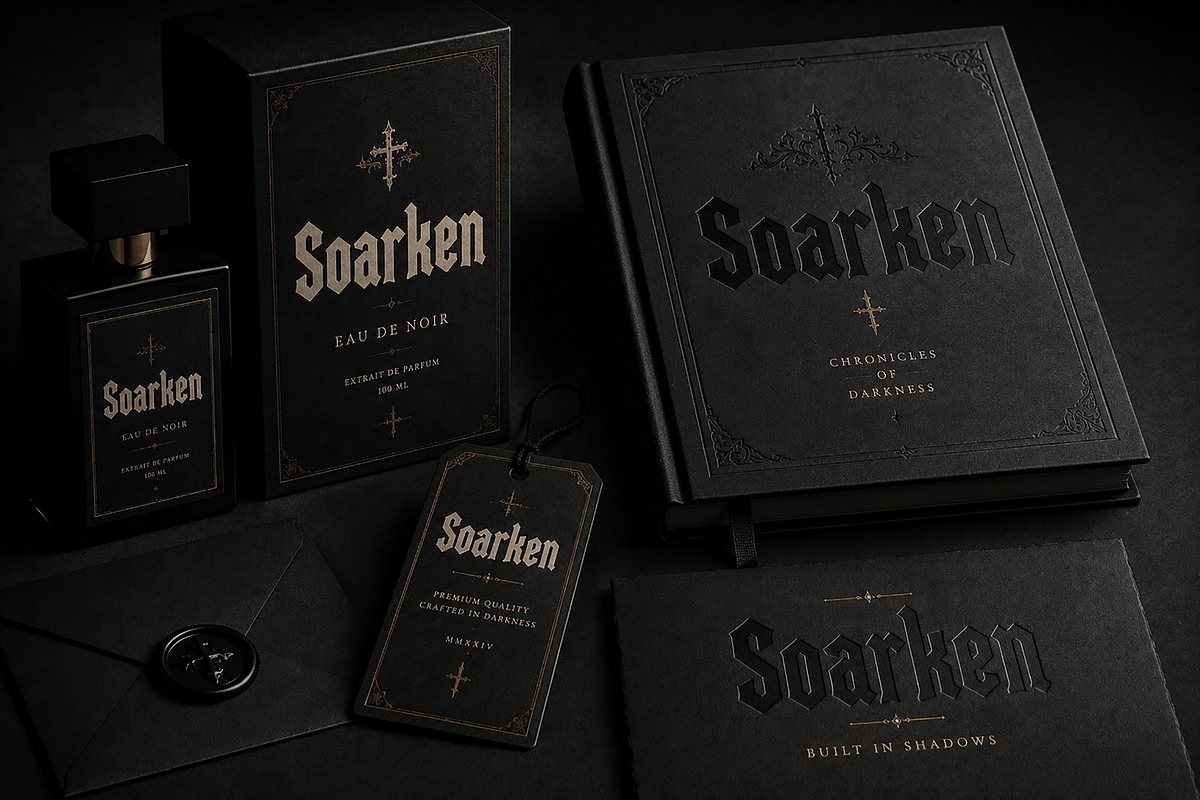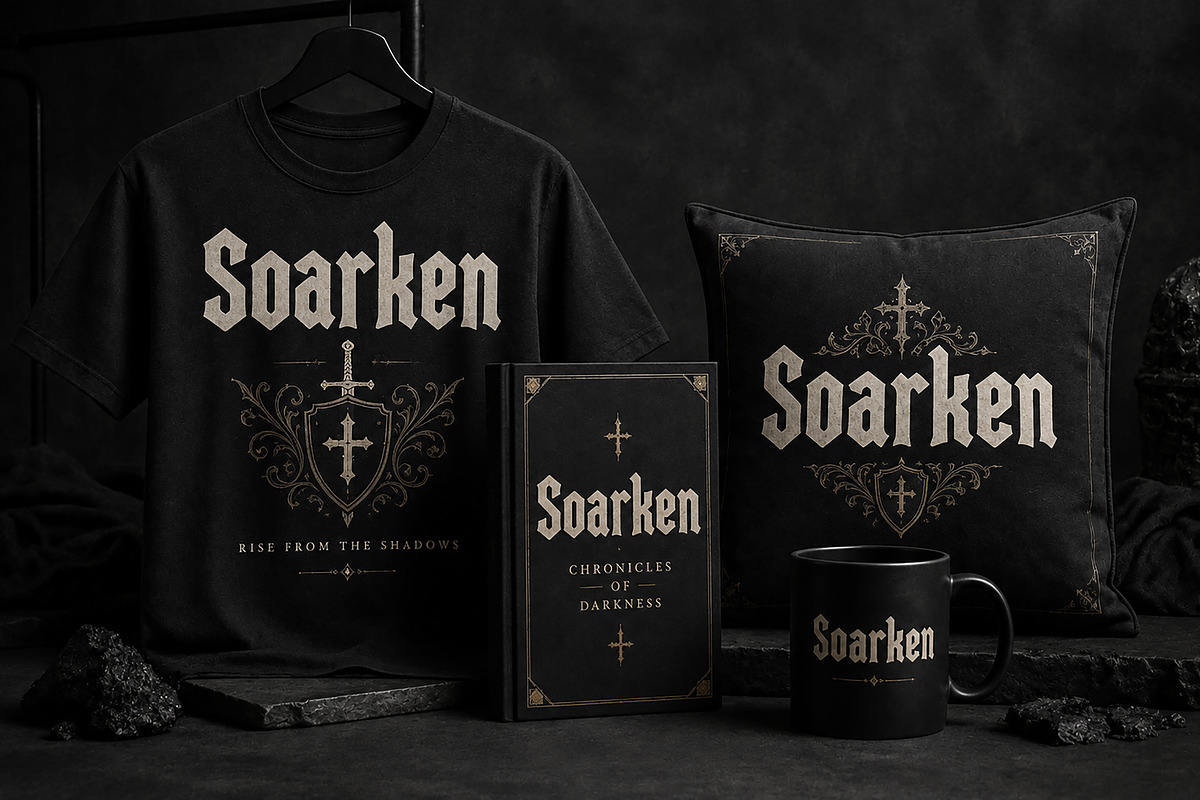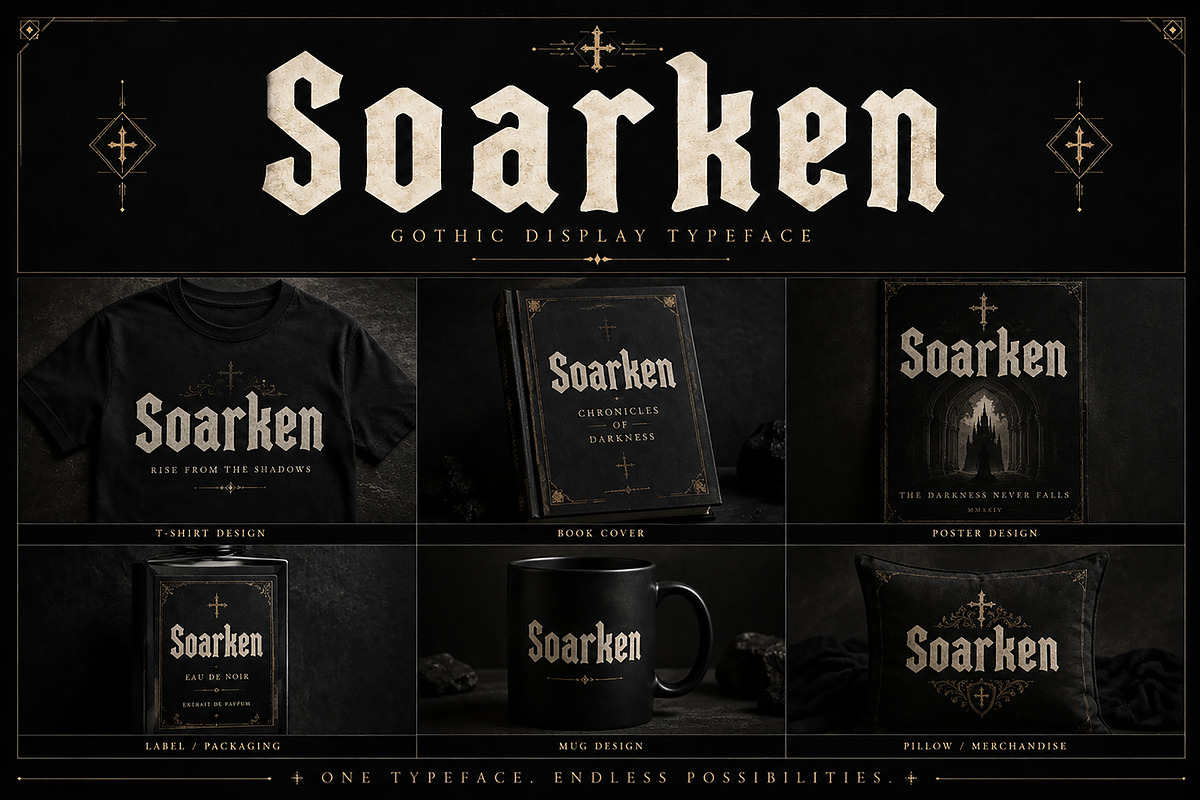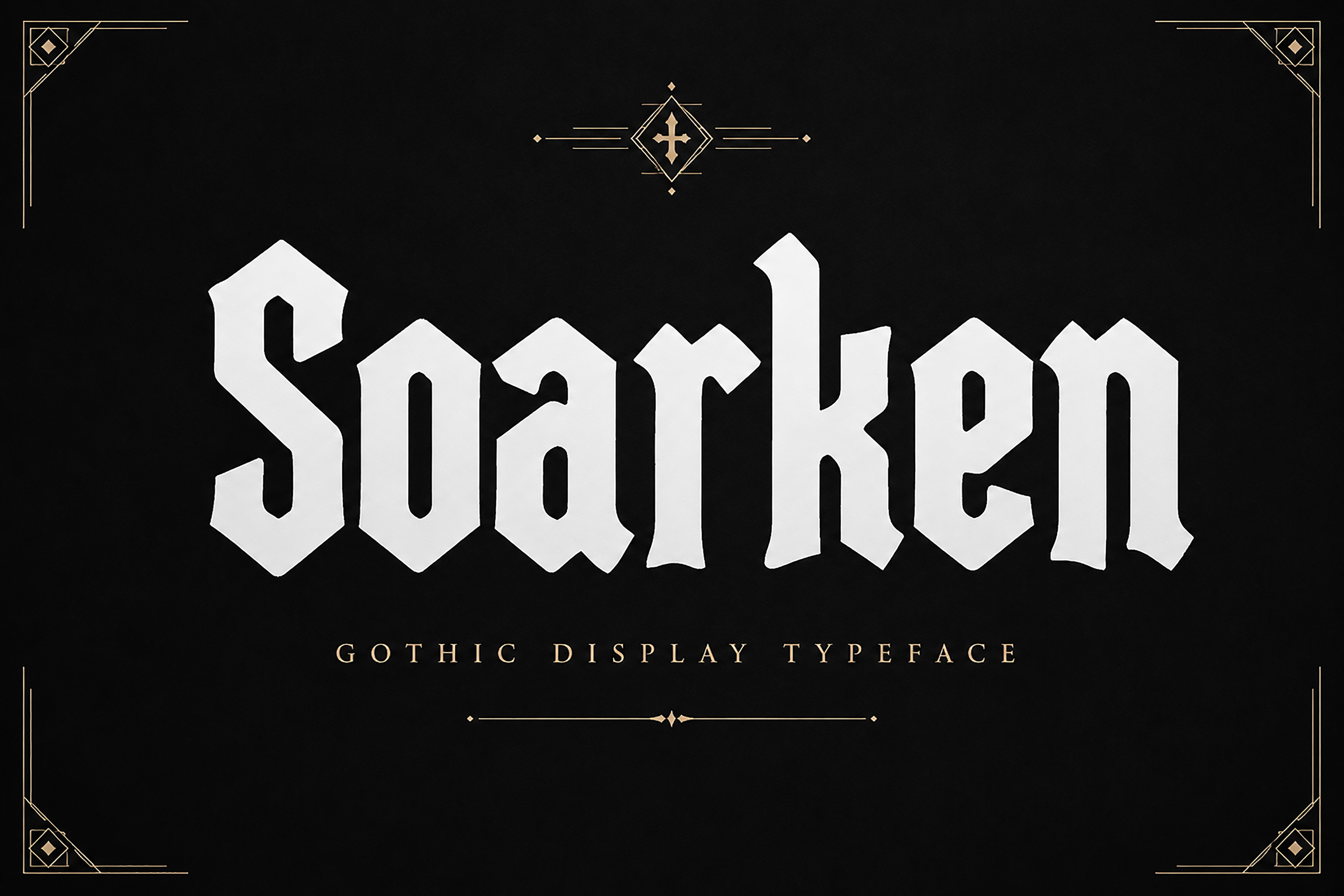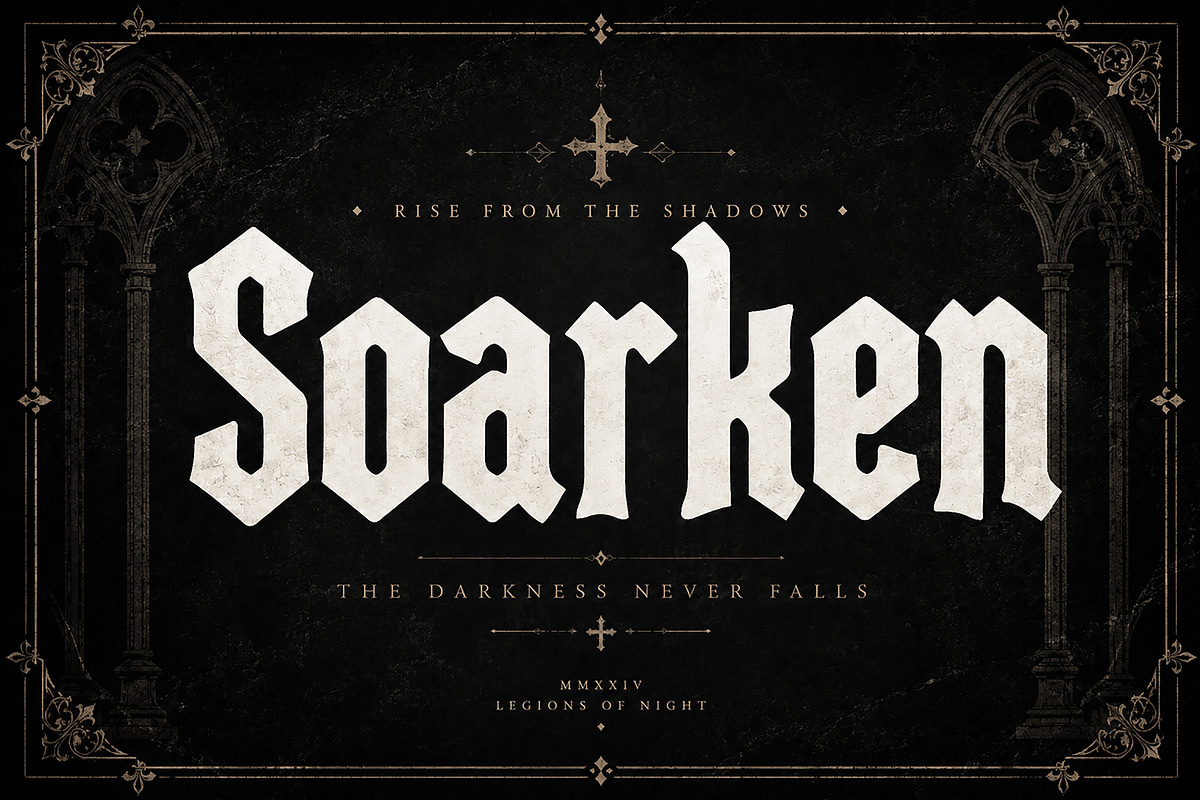
Soarken — Gothic Typeface
Soarken — Gothic Display Typeface
Soarken is a bold and striking Gothic display typeface designed to bring a dark, powerful, and medieval-inspired character to your creative projects. Its sharp angular forms, heavy letterforms, and distinctive blackletter aesthetic make it an excellent choice for designs that need a strong and dramatic visual presence.
Perfect for logos, branding, posters, album artwork, T-shirt designs, book covers, packaging, labels, merchandise, event graphics, gaming artwork, tattoos, and social media designs.
Soarken works especially well for dark fashion brands, medieval-inspired projects, metal and alternative music artwork, fantasy themes, historical designs, and other bold display applications.
Bold Gothic / Blackletter display style
Strong, dramatic and distinctive letterforms
Excellent for headlines and large typography
Suitable for branding and logo concepts
Great for print and digital design
Ideal for merchandise and packaging projects
Easy to use for a wide range of creative applications